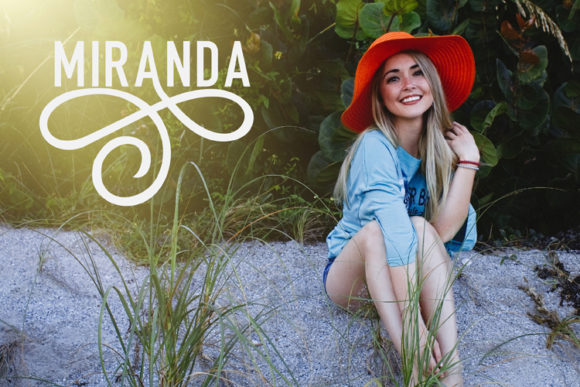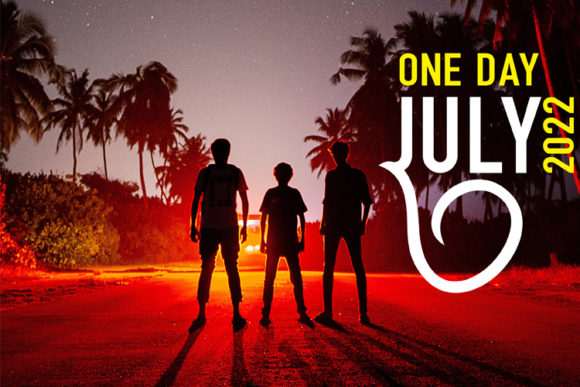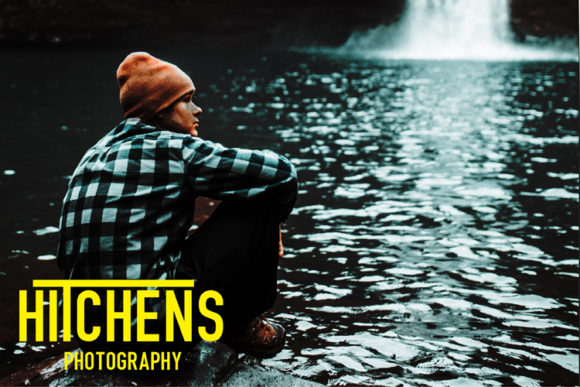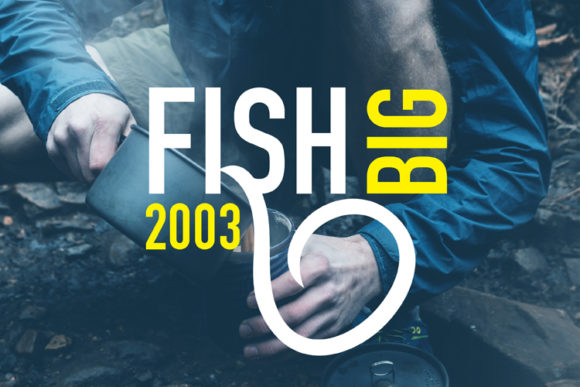
Astrakhan Font: Elevate Your Designs with Elegance and Sophistication
In the world of typography, few fonts manage to strike a balance between elegance and versatility. Astrakhan Font is one such exceptional display font that embodies sophistication and refinement. Designed to make a lasting impression, Astrakhan simplifies elegance into one truly outstanding font, perfect for a wide range of creative projects. Whether you’re a designer, crafty DIY enthusiast, or social media influencer, Astrakhan is the ideal choice for elevating your logos, branding, social media content, and crafty projects.
The Essence of Astrakhan Font
Astrakhan Font is a masterclass in typographic design, boasting clean lines, subtle curves, and a distinctive character that sets it apart from other fonts. Its unique blend of classic and modern elements makes it an excellent choice for designers seeking to add a touch of sophistication to their work. With Astrakhan, you can create stunning visual content that exudes elegance, luxury, and refinement.
Key Features of Astrakhan Font
- Unique Character Set: Astrakhan Font features a comprehensive character set, including uppercase and lowercase letters, numbers, and special characters, ensuring that you have everything you need to create stunning visual content.
- Clean and Modern Design: The font’s clean lines and modern aesthetic make it perfect for designs that require a touch of sophistication and elegance.
- Highly Versatile: Astrakhan Font is suitable for a wide range of applications, from logos and branding to social media graphics, posters, and crafty DIY projects.
- Easy to Read: Despite its elegant design, Astrakhan Font remains highly legible, making it an excellent choice for body text and headlines.
Astrakhan Font is an excellent choice for designers and crafters seeking to elevate their work with a touch of elegance and sophistication. Here are some ways you can use Astrakhan to enhance your creative projects:
- Logos and Branding: Create stunning logos and branding materials that exude luxury and refinement.
- Social Media Graphics: Elevate your social media content with eye-catching graphics, posters, and ads that showcase your brand’s personality.
- Crafty DIY Projects: Add a touch of elegance to your crafty DIY projects, such as handmade cards, invitations, and scrapbooking.
- Posters and Flyers: Create visually stunning posters and flyers that grab attention and leave a lasting impression.
Tips for Using Astrakhan Font
To get the most out of Astrakhan Font, here are some tips to keep in mind:
- Experiment with Font Sizes: Astrakhan Font looks great in a variety of font sizes, from large headlines to smaller body text.
- Pair with Other Fonts: Combine Astrakhan with other fonts to create visually interesting and dynamic designs.
- Use in Combination with Images: Pair Astrakhan with high-quality images to create stunning visual content that tells a story.
Astrakhan Font is a truly exceptional display font that simplifies elegance into one outstanding font. With its unique character set, clean design, and versatility, Astrakhan is the perfect choice for designers, crafters, and social media enthusiasts seeking to elevate their work with a touch of sophistication and refinement. Whether you’re creating logos, branding materials, social media graphics, or crafty DIY projects, Astrakhan Font is sure to make a lasting impression.